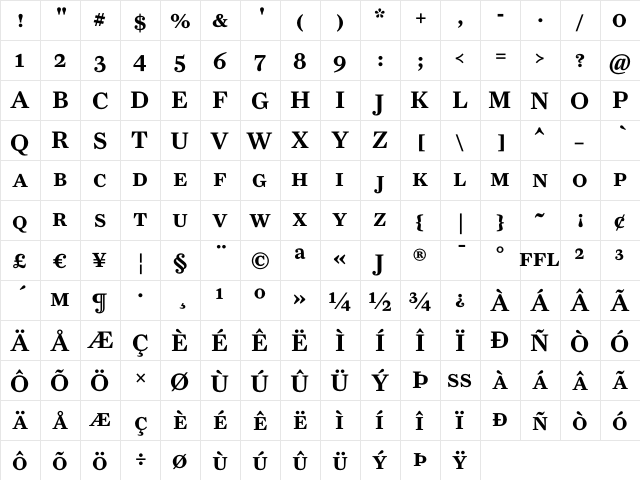
FarnhamText-SemiSC Regular
Design Context for FarnhamText-SemiSC Typeface
FarnhamText-SemiSC takes a measured approach to typography — its balanced proportions and neutral character make it a reliable workhorse for both digital and print work.
Pro Tip: Use FarnhamText-SemiSC in both headline and body roles to test its range before committing to a single application.